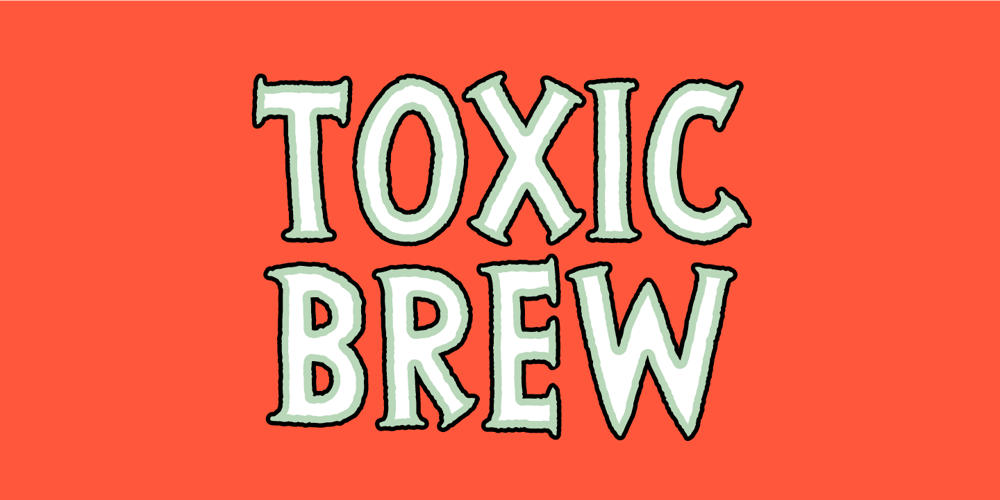
Toxic Brew Font Family was designed by Jakob Fischer and published by PizzaDude.dk. Toxic Brew contains 4 styles and family package options. The Toxic Brew font was initially designed to be a Halloween font, but I guess it turned out not so scary in the end. But maybe you can use it for something scary anyway?I’ve added several versions, and they mix very well